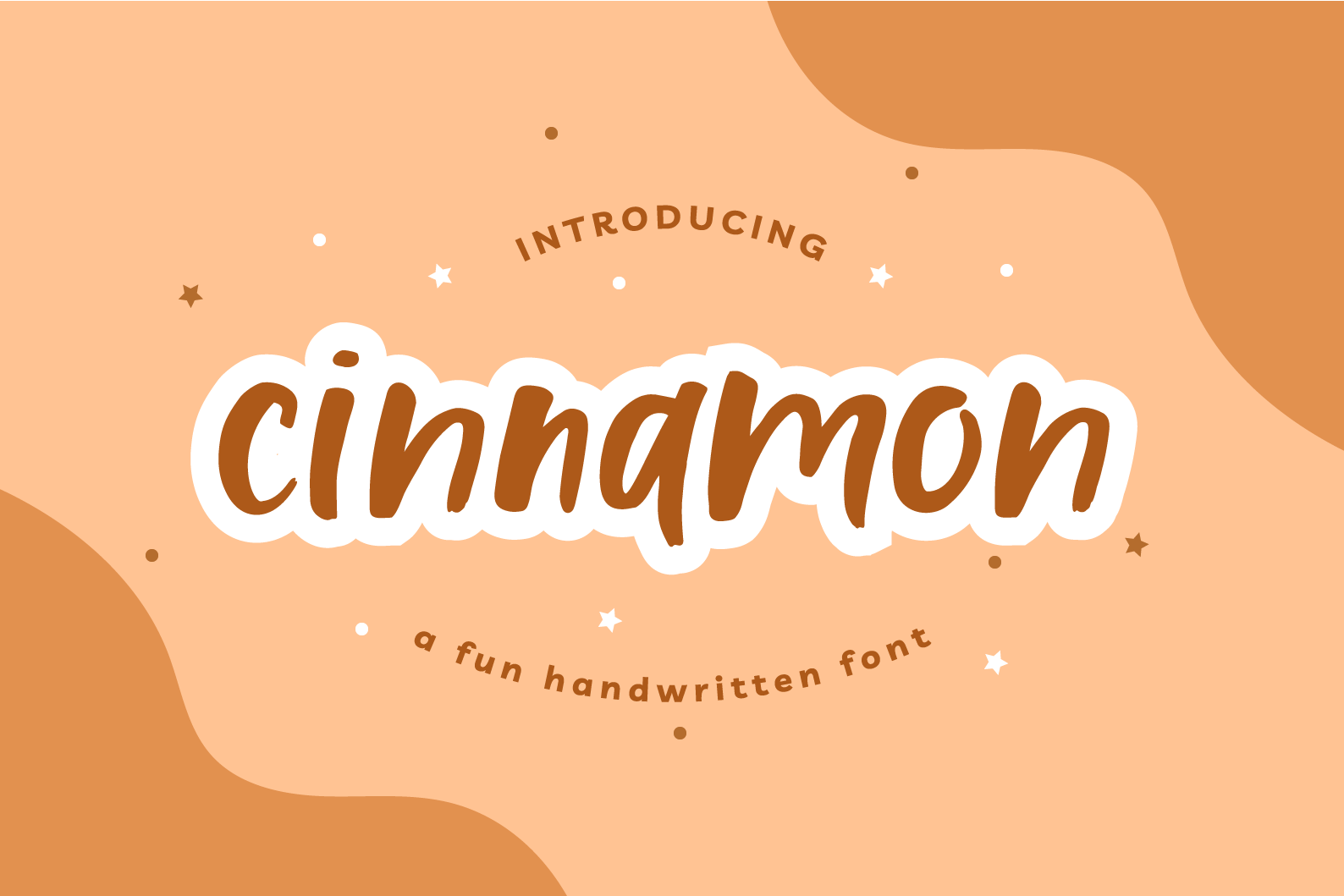
Cinnamon - Fun Handwritten Font
Introducing Cinnamon Spice, a whimsical handwritten font! This modern sans-serif font was painted with a paintbrush to add that handmade, personal touch to your design work.
Use Cinnamon Spice for magazine layouts, packaging, quotes, logos and branding, greeting cards, window art, menus, scrapbooking, recipe books, and more!
This font will be perfect for your fall / autumn design projects.
This handwritten font also comes with 19 ligatures (bb, ee, ff, etc.) to give you that authentic handwritten look.